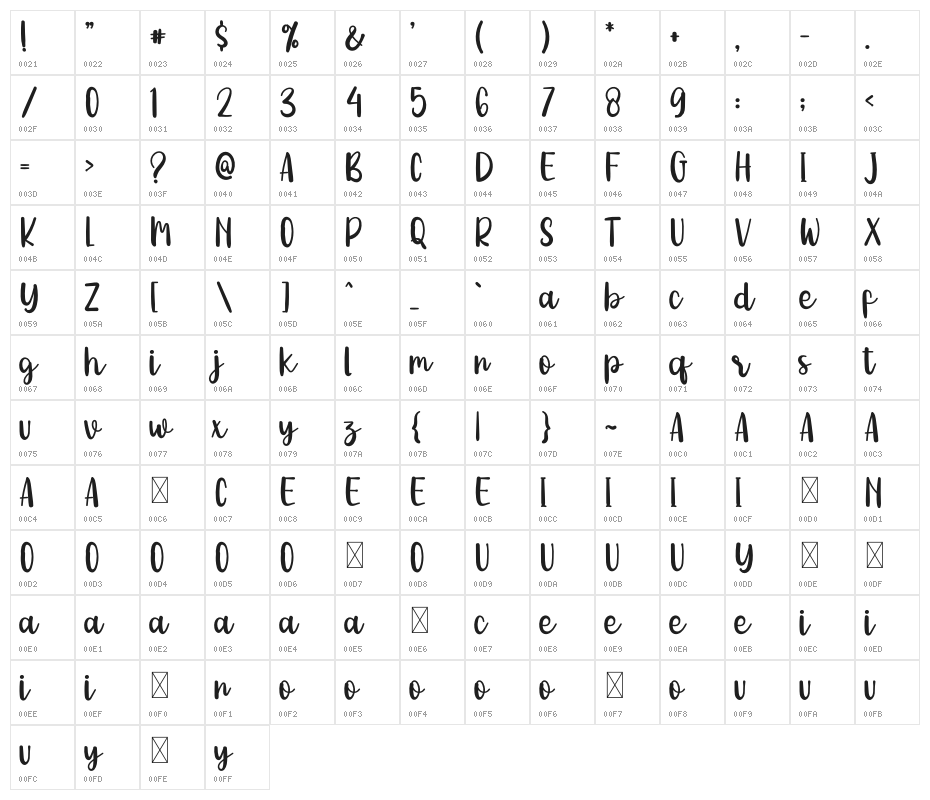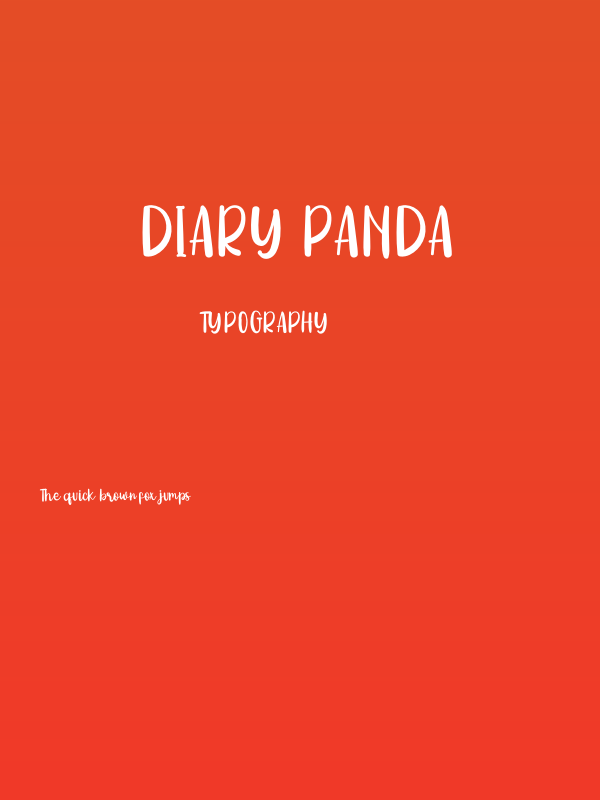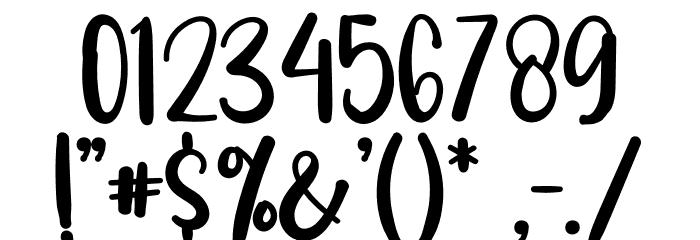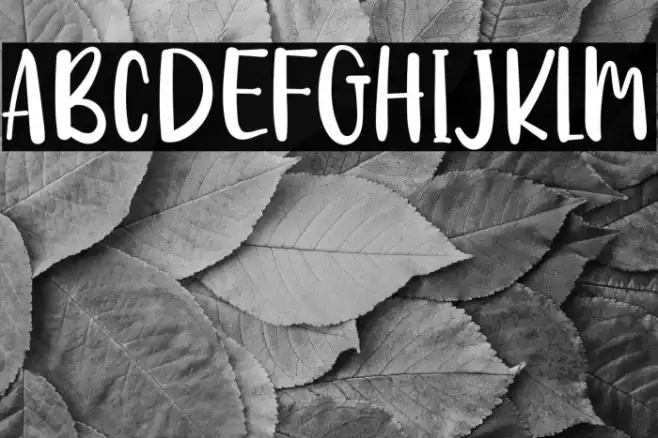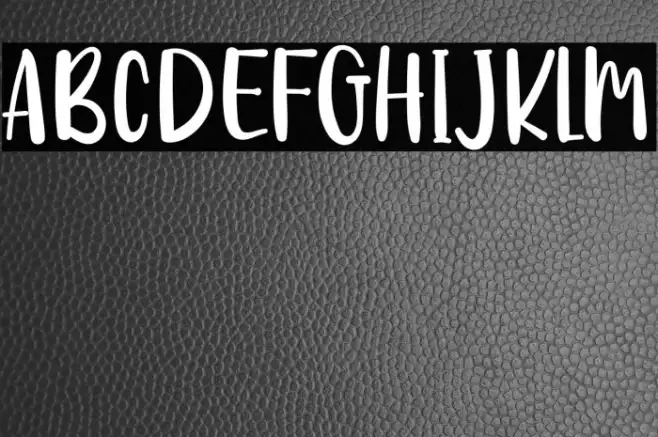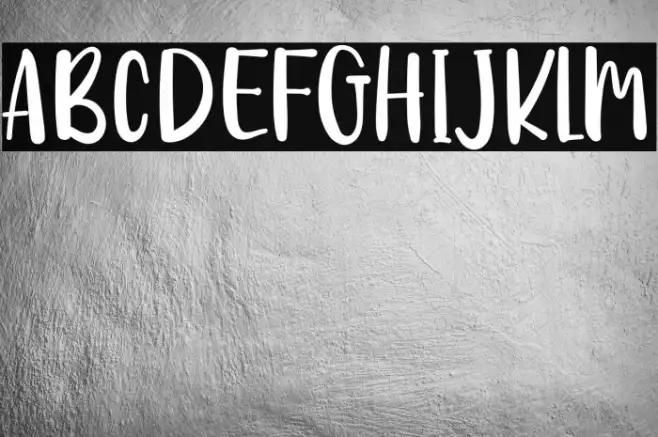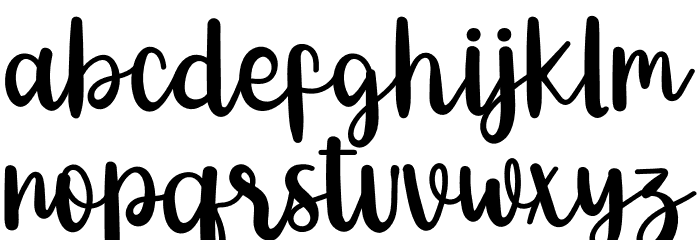
DIARY Panda Font
DIARY Panda Description
This playful and energetic font features bold, rounded characters with a handwritten style. The uppercase letters are tall and slightly narrow, while the lowercase letters have a more casual, flowing appearance. The numbers and special characters maintain the same lively and approachable aesthetic, making the font versatile for various design needs. The strokes are consistent in thickness, providing a uniform look across all characters. This font's friendly and informal style makes it ideal for projects that require a personal touch.
| Use Case | Logos, Headlines, Social Media Graphics |
| Proposed Projects | Great for greeting cards, children's books, playful branding, and social media graphics. |